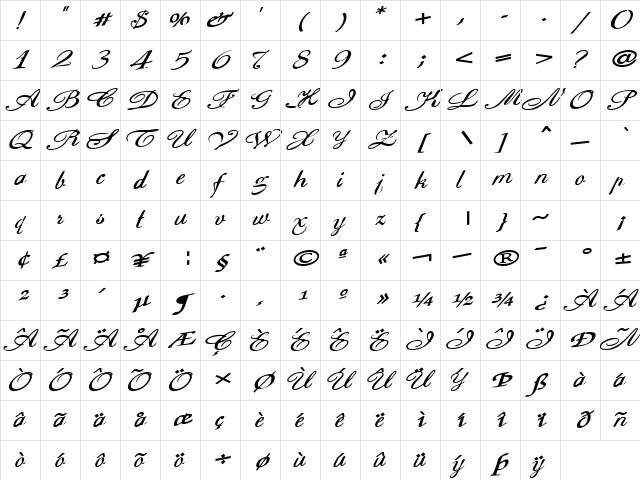
Complete CowGirl156a Bold glyph index. Displaying only characters natively supported by CowGirl156a Bold font.
CowGirl156a is a composed and adaptable typeface that performs quietly and consistently across a wide range of design contexts. Its bold stroke weight gives it real presence on the page.